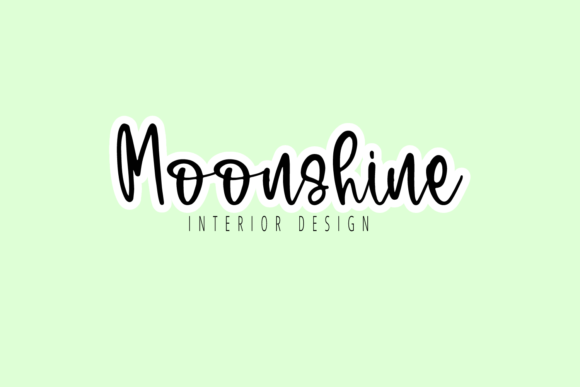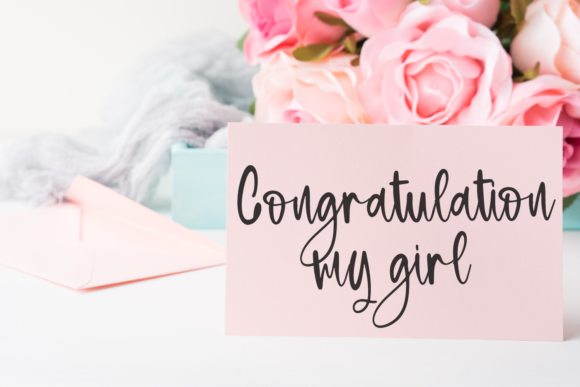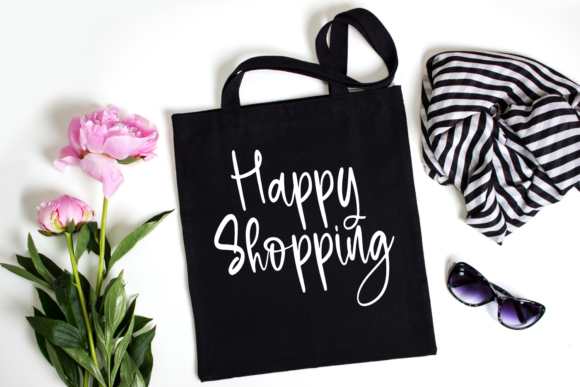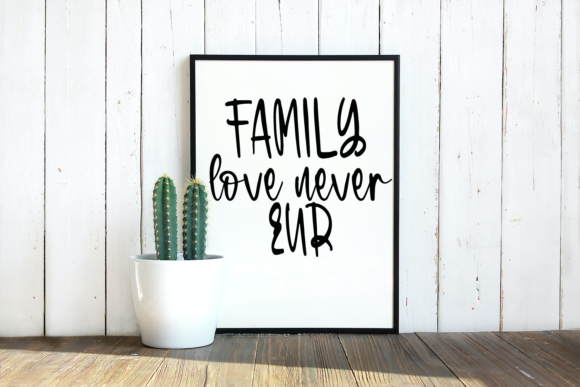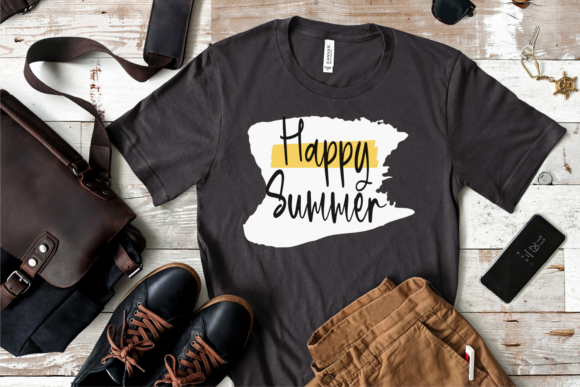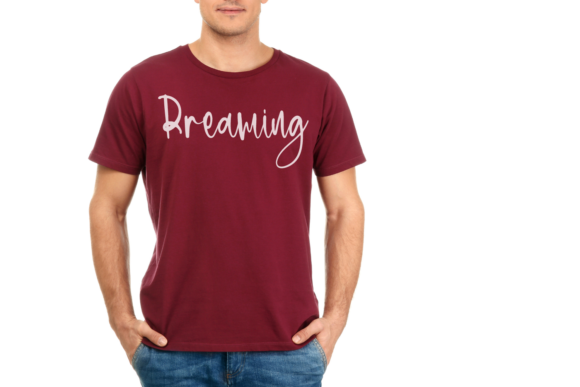
The Greenlight Font: A Creative’s New Best Friend
I still remember the design project that led me to discover the Greenlight font. I was working on a whimsical poster for a local craft fair, and I needed a font that would capture the playful, handmade spirit of the event. After hours of scrolling through font libraries, I stumbled upon Greenlight – a beautiful, lightweight handwritten font that instantly resonated with my creative vision. In this article, I’ll share my experience with Greenlight, its features, and how to make the most of it in your designs.
An Honest Review of Greenlight Font
What I Love About Greenlight ✨
- ✅ Playful yet elegant: Greenlight strikes the perfect balance between playfulness and sophistication, making it suitable for a wide range of creative projects.
- ✅ Lightweight and efficient: This font is optimized for both traditional media and digital platforms, ensuring it loads quickly and looks great everywhere.
- ✅ Versatile and adaptable: From inspirational wall posters to branding and advertising, Greenlight can be used in various contexts to add a personal touch.
While Greenlight is an excellent font, it’s not without its quirks. For instance:
- 🤔 Limited formal applications: Due to its playful nature, Greenlight might not be the best fit for formal or corporate projects that require a more traditional look.
- 🤔 Some letters may appear too connected: In certain words or phrases, the connections between letters can make the text appear too script-like, which might not be desirable in all cases.
- Explore OpenType features, glyphs, and stylistic alternates to add variety to your text. For example, you can use ligatures to create more fluid connections between letters or access alternate characters to add visual interest.
The Story Behind Greenlight Font
Greenlight was designed with the intention of creating a font that would inspire creativity and bring a personal touch to various design projects. Its creator aimed to craft a font that was both elegant and playful, making it versatile enough for use in a wide range of applications. While the actual story behind Greenlight might be fictional, its impact on the design community is very real.
Q: Is Greenlight suitable for body text?
A: While Greenlight is a beautiful font, it’s best suited for headlines, titles, and short paragraphs. Its playful nature might make it less ideal for longer body text.
Q: Does Greenlight support OpenType features?
A: Yes, Greenlight supports OpenType features, including ligatures, stylistic alternates, and glyphs. This allows you to add variety and visual interest to your text.